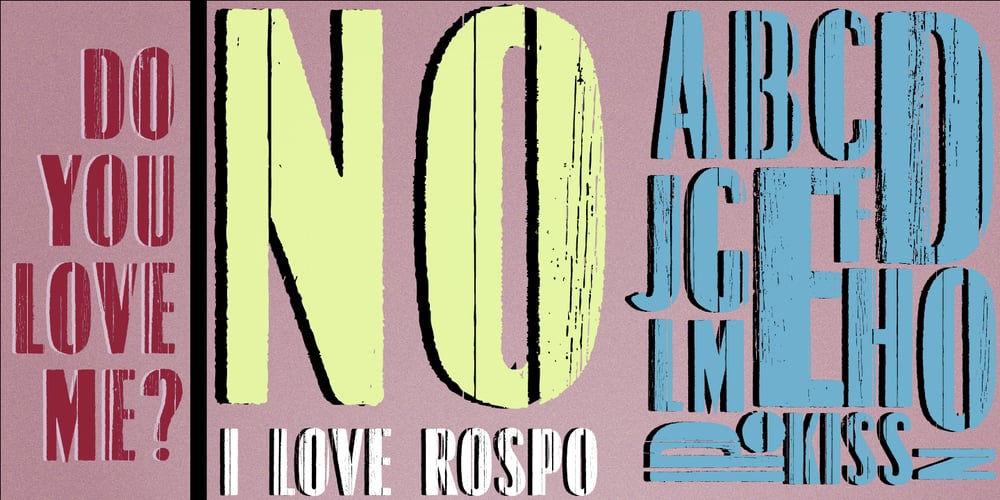
Rospo Wood Font Family was designed by published by Typoforge Studio. Rospo Wood contains 1 styles and family package options. Font Rospo-Wood is two-element font inspired by the weekly “Tygodnik Ilustrowany” from the 1933. Font has three alternative glyphs that are automatically replaced.